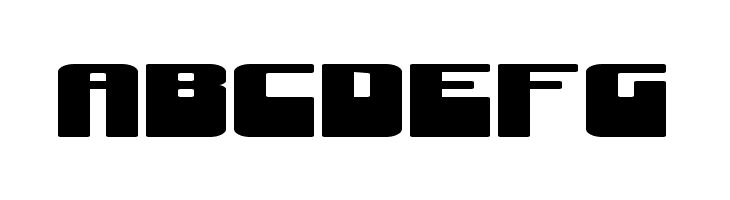
Dot Zero Extrude Font
- Font: Dot Zero Extrude
- Weight: Extrude
- No. of Characters:: 118
( Fonts by Typography in Decay )
A bold, rounded font with a futuristic and playful design.